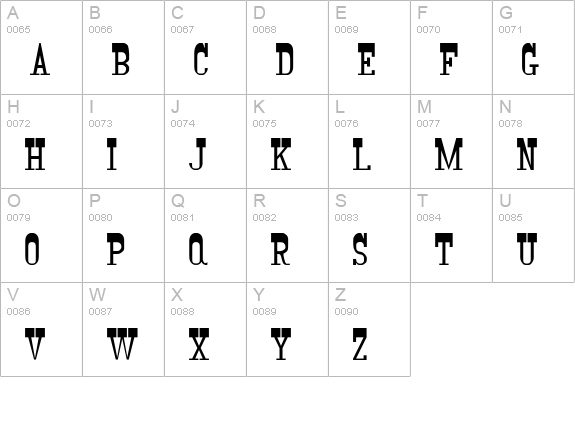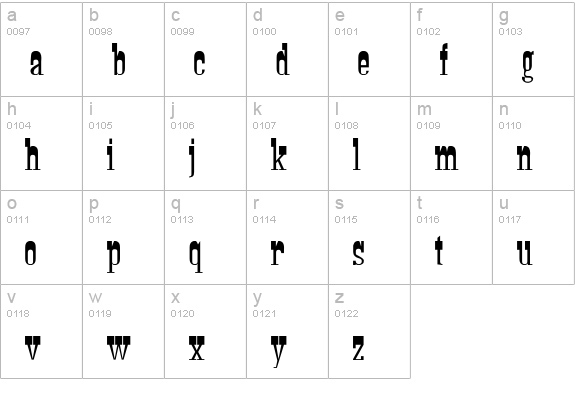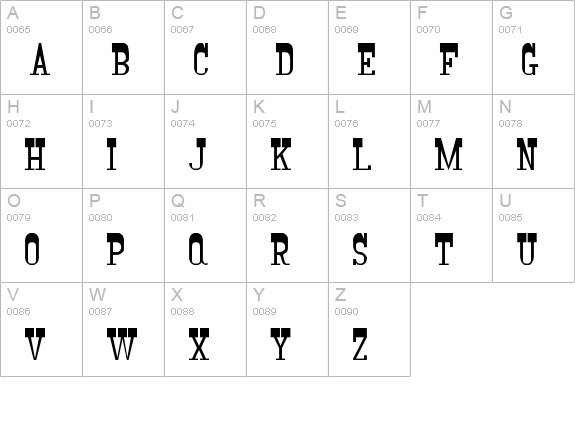
Riverboat font is a stunning display typeface that captures the essence of adventure and exploration. With its bold and distinctive letterforms, this font exudes a sense of wanderlust and rugged charm. Perfect for branding, headlines, and posters, Riverboat font adds a touch of vintage flair to any design project. Best of all, Riverboat font is completely free to download at FontsMarket.com. Whether you're working on a personal project or a client's design, you can easily access this unique font without any cost. Don't miss out on the opportunity to enhance your creations with the captivating style of Riverboat font. Download it now and let your creativity set sail!